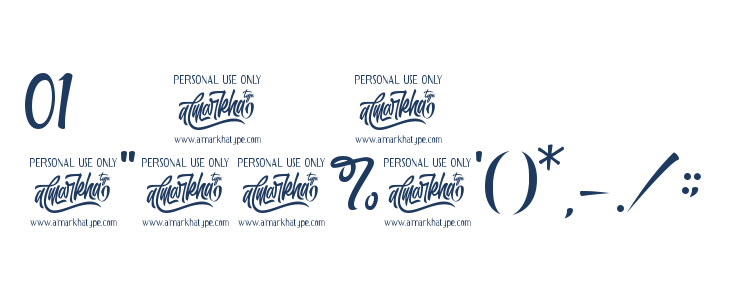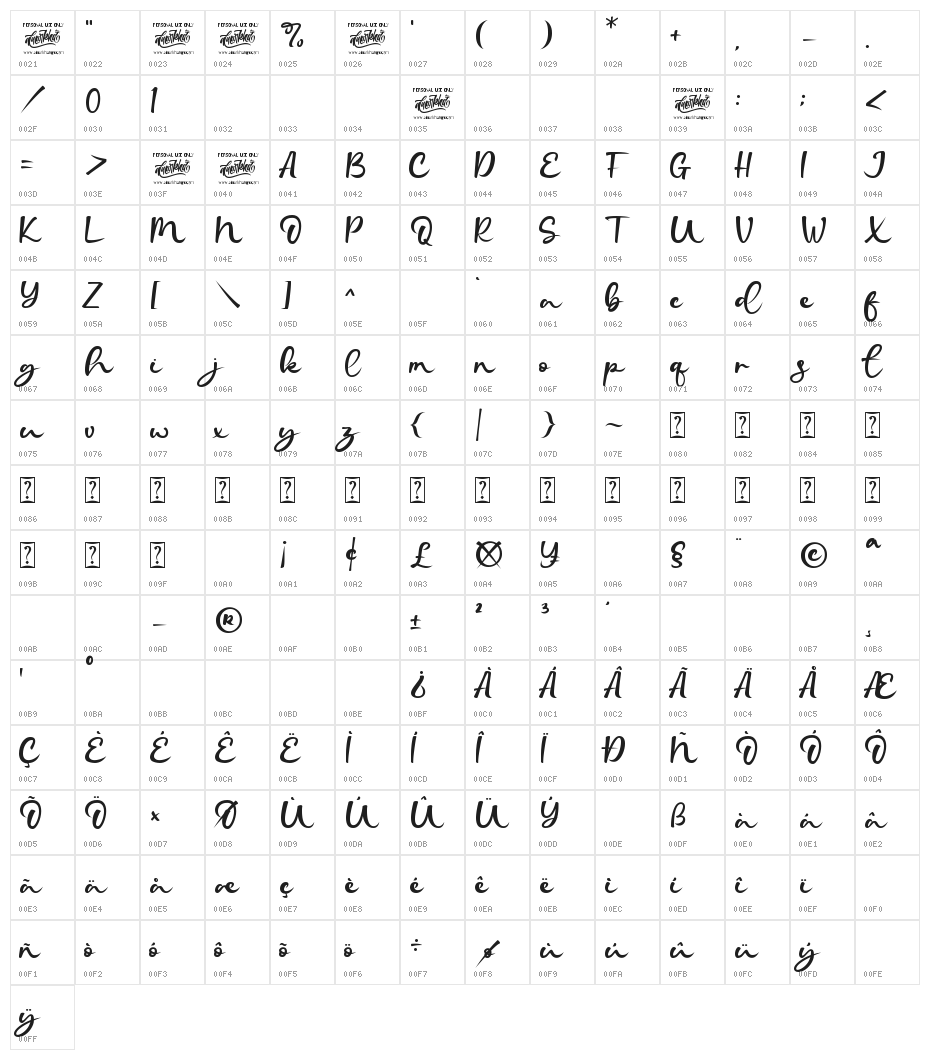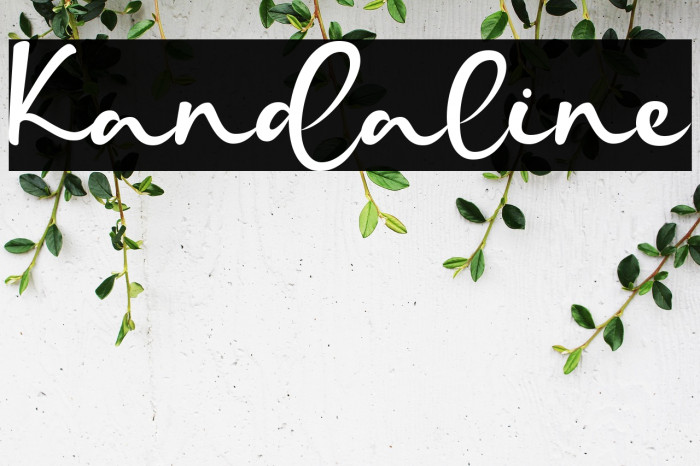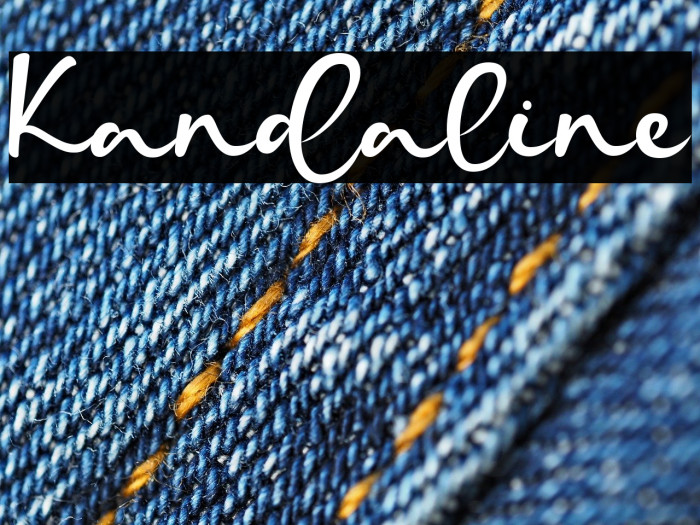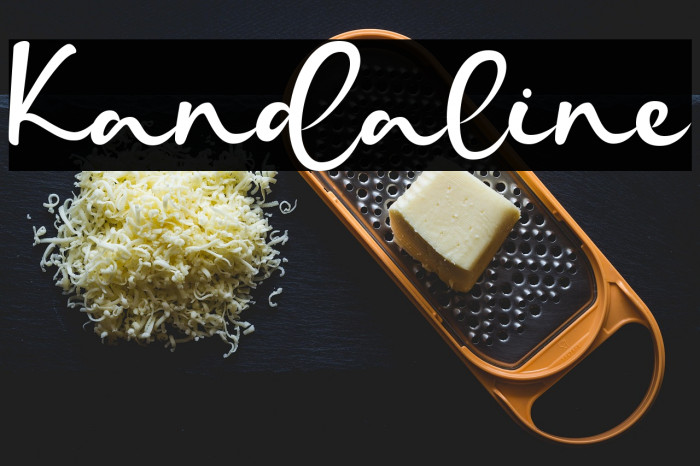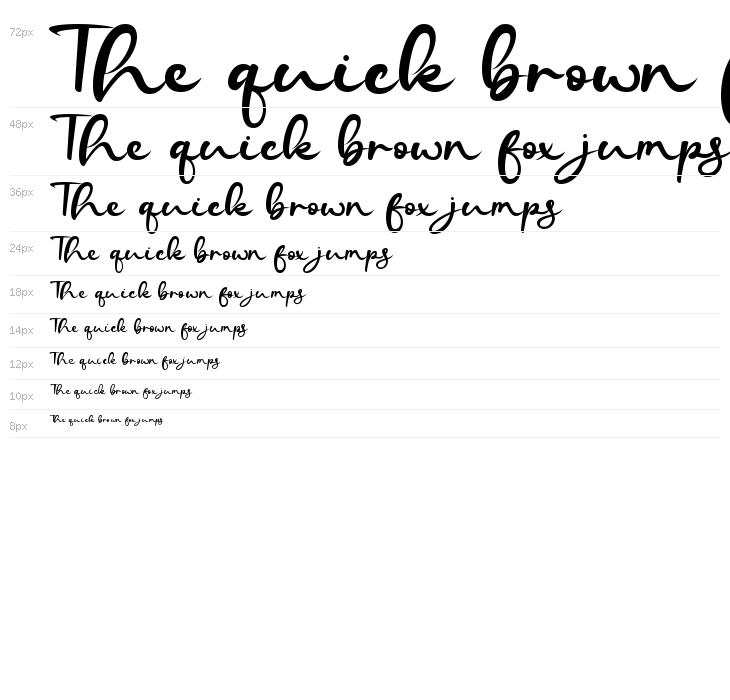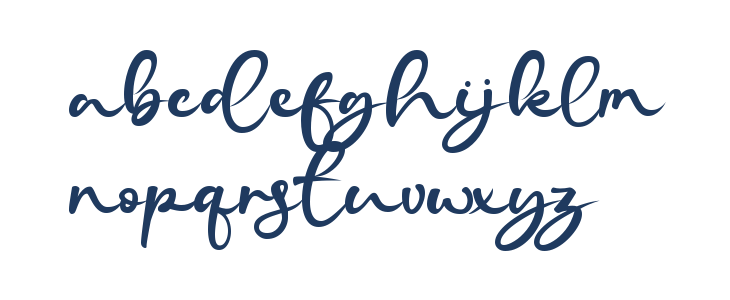
Kandaline Font
Kandaline Description
This font features a lively and dynamic script style with a handwritten feel. The uppercase letters are bold and flowing, with a sense of movement that adds a playful touch. The lowercase letters maintain this fluidity, offering a cohesive look that is both elegant and casual. The numbers are consistent with the script style, providing a harmonious appearance across all characters. Special characters are uniquely styled, enhancing the font's decorative appeal. The overall design is suitable for projects that require a personal and approachable aesthetic.
| Proposed Projects | Ideal for invitations, greeting cards, branding, and social media graphics. |